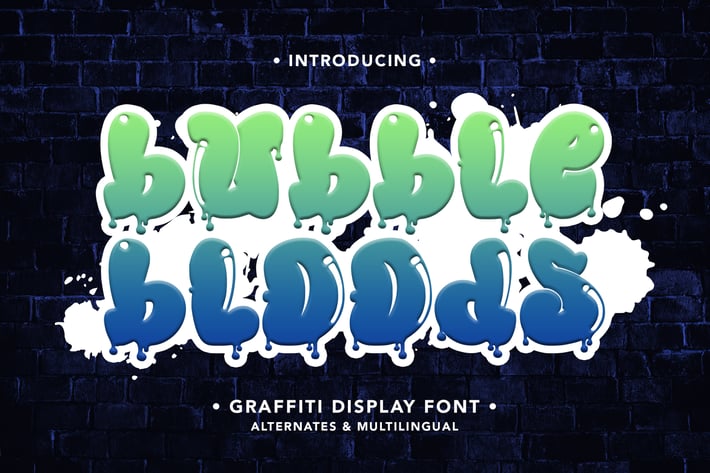
BubbleBloods - Graffiti Display Font
BubbleBloods - Graffiti Display Font contains a lowercase, uppercase, symbol, and also supports multi-language. There’s a lot of ligature in this font. BubbleBloods - Graffiti Display Font also comes with ligatures, stylistic alternates and many more.
this font suitable for fashion, branding, catalog and other design that you want.